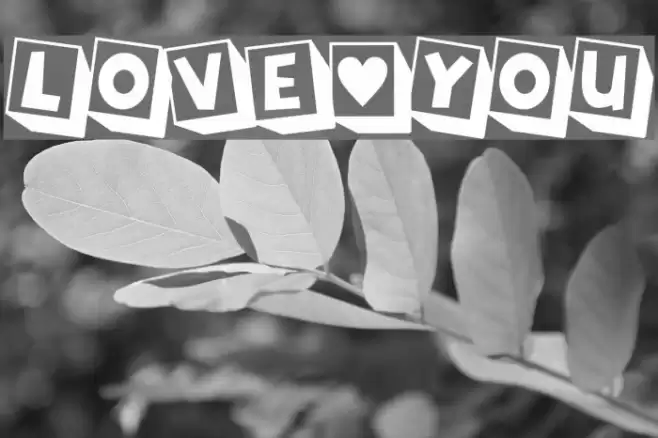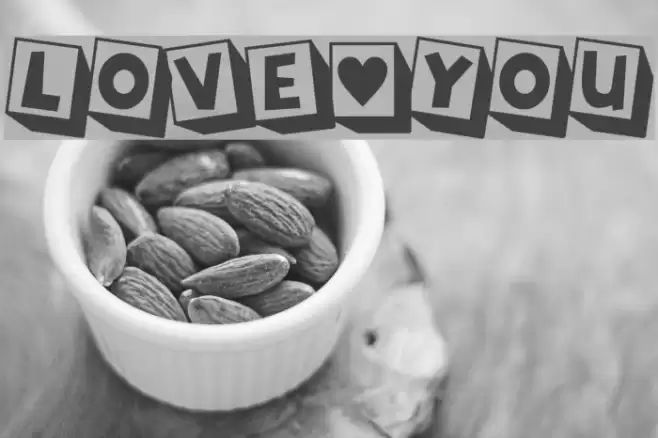
LOVE-YOU Font
LOVE-YOU Description
This playful and bold font features letters that appear to be cut out and placed on individual blocks, creating a dynamic and eye-catching effect. Each character is enclosed in a slightly tilted square, giving the impression of a three-dimensional shadow. The font is highly stylized with thick, uniform strokes and a strong presence, making it ideal for attention-grabbing designs. The uppercase and lowercase letters maintain a consistent style, while the numbers and special characters are integrated seamlessly, adding to the font's versatility.
A bold, playful font with characters on tilted blocks, creating a dynamic 3D effect from Uncategorized fonts.
- Proposed Projects: Ideal for children's book covers, playful branding, posters, and any design requiring a fun and engaging typeface.
- Overall Style: Playful, Modern